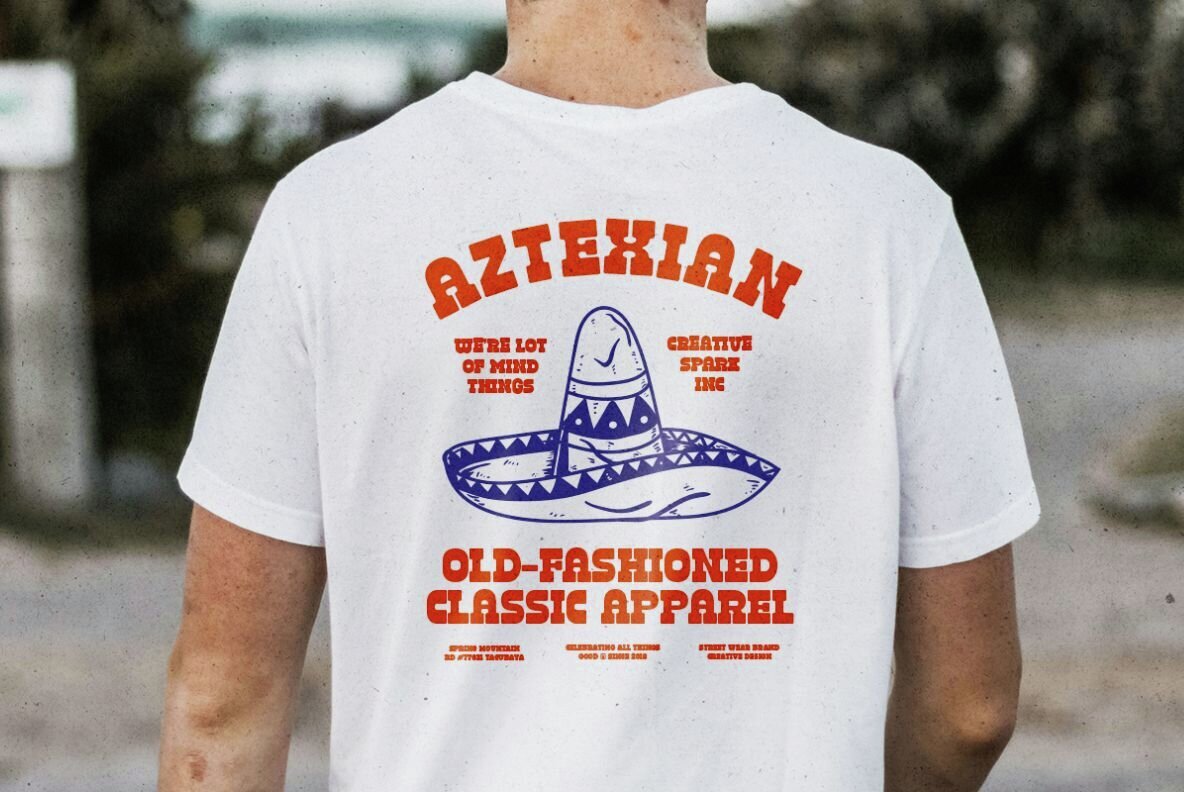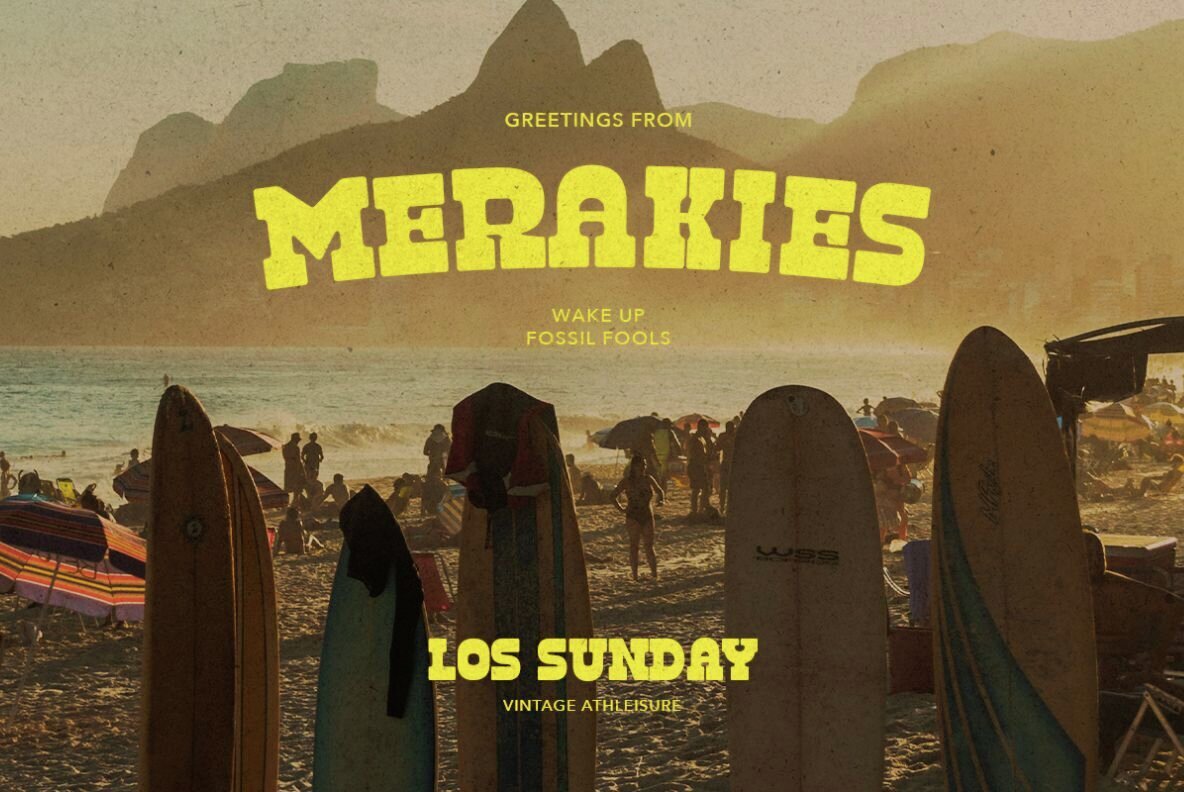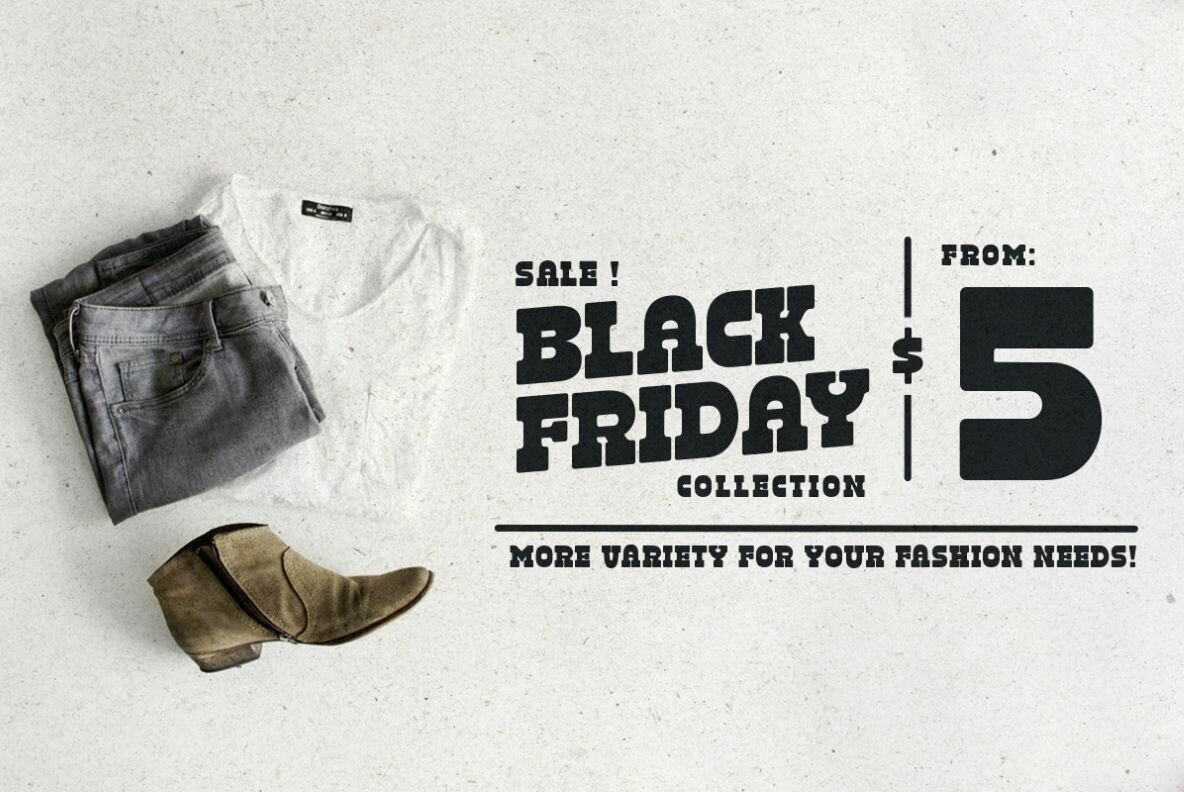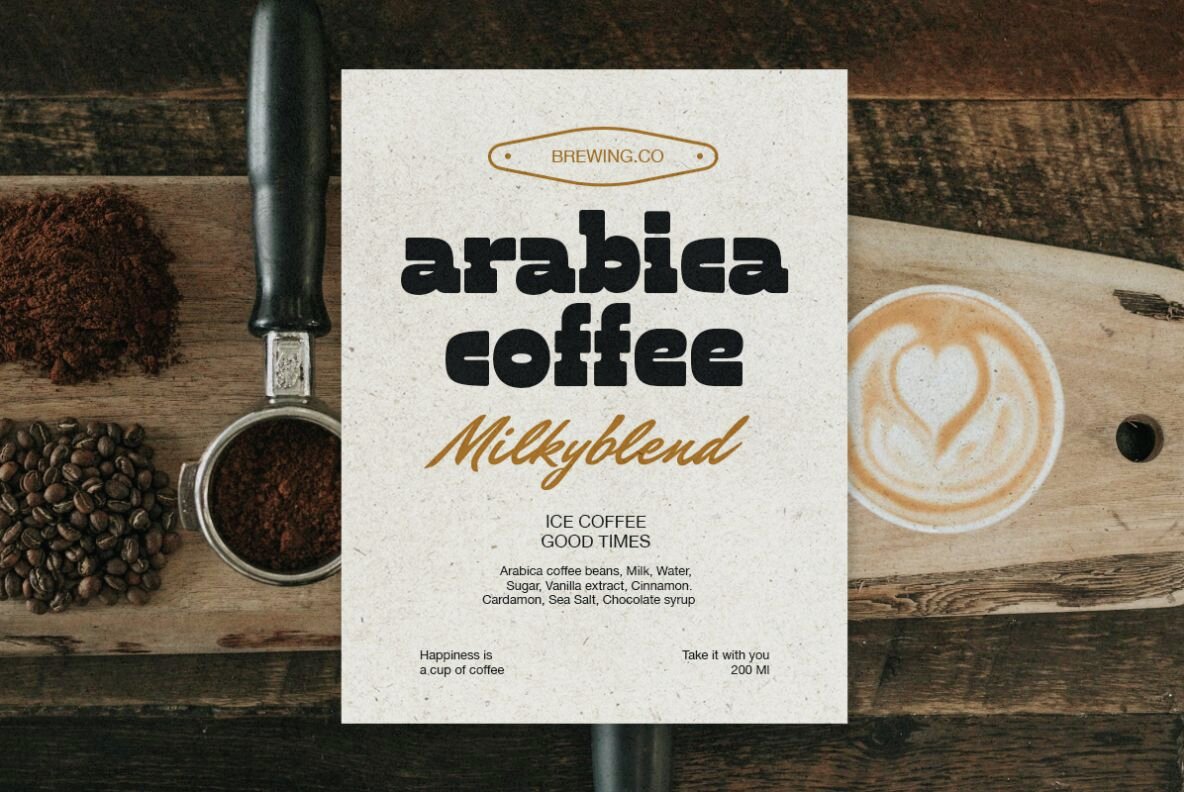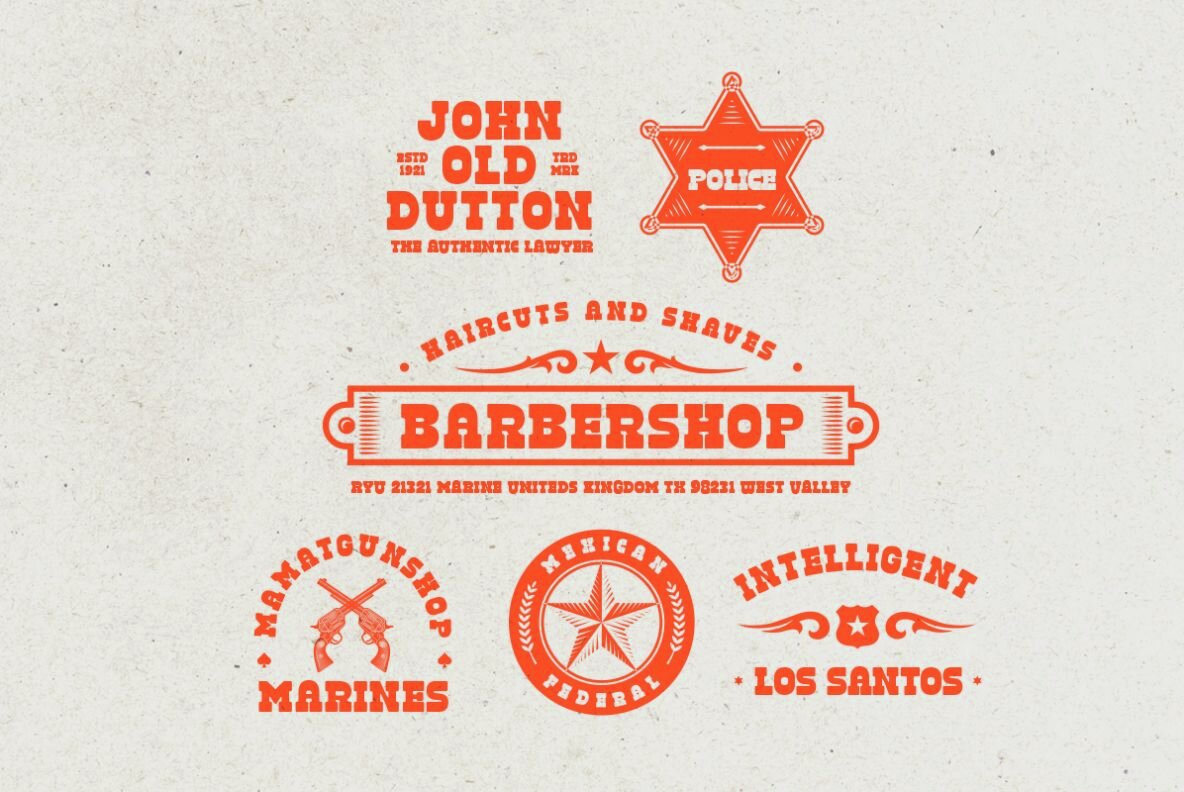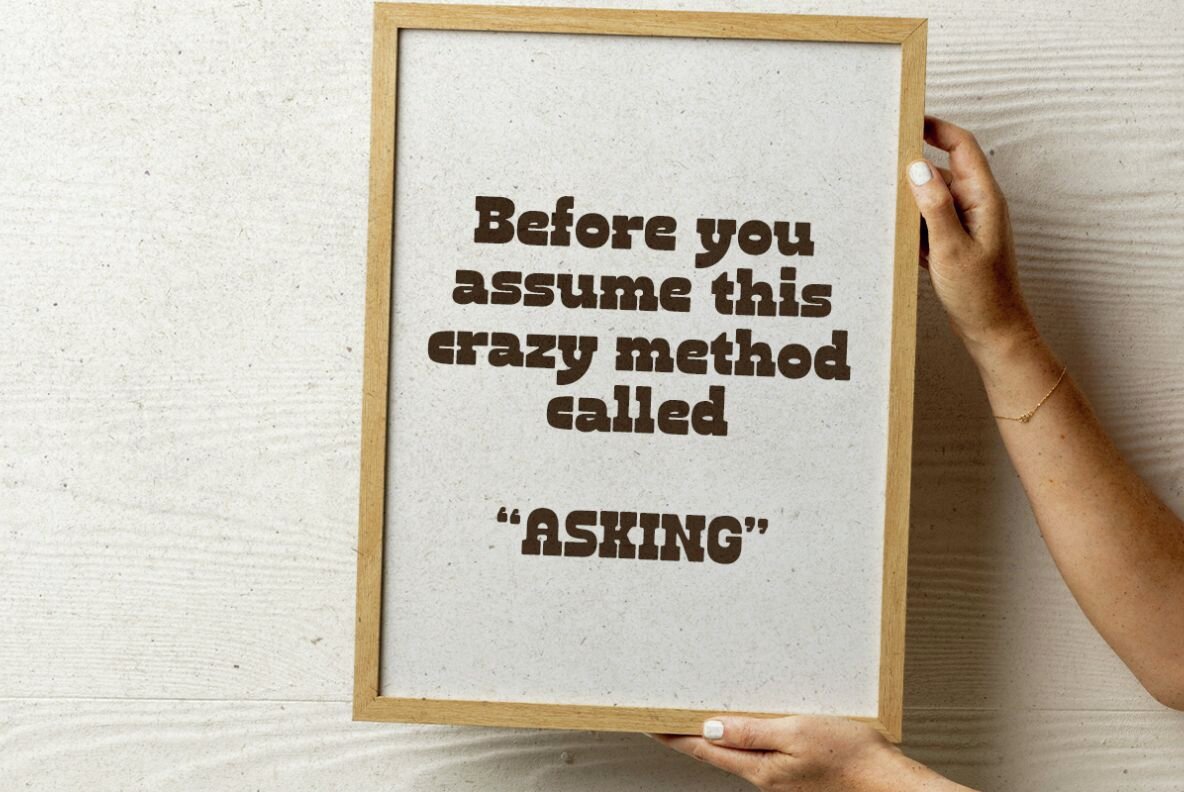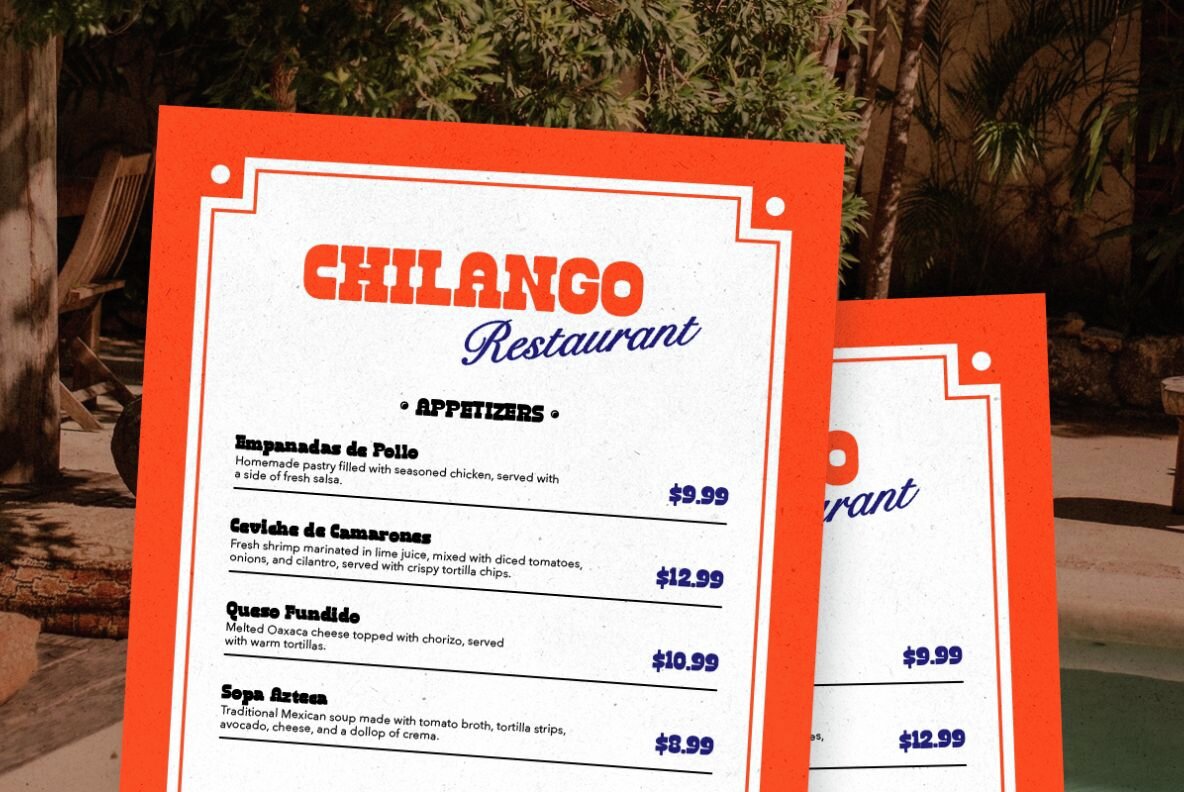
Banditor Font
Banditor Regular
Banditor is a bold and reverse slab serif. You can use this font for any purposes especially for cowboy themes. This font also suitable for branding, logo, retro design, and quotes. Banditor also support multi language.